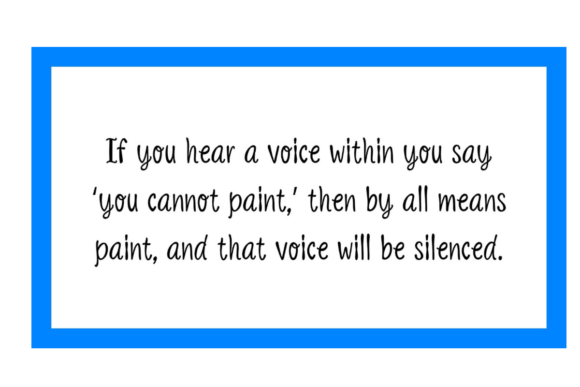
Introducing End Flick Font: The Quirky Handwritten Font for Creative Projects
Are you tired of using the same old fonts for your creative projects? Look no further than End Flick Font, a quirky handwritten font that’s perfect for adding a personal touch to your designs. With its playful flicks and loops on each letter, End Flick Font is sure to bring a cheerful and whimsical character to any project.
What is End Flick Font?
End Flick Font is a unique and creative font that’s designed to add a touch of personality to your designs. Its quirky handwritten style features playful flicks and loops on each letter, giving it a fun and whimsical feel. This font is perfect for creative titles, children’s books, or fun DIY projects, and is sure to help your designs stand out from the crowd.
Key Features of End Flick Font
- Quirky Handwritten Style: End Flick Font features a unique and quirky handwritten style that’s perfect for adding a personal touch to your designs.
- Playful Flicks and Loops: Each letter in the font features playful flicks and loops, giving it a fun and whimsical feel.
- Perfect for Creative Projects: End Flick Font is perfect for creative titles, children’s books, or fun DIY projects.
- Whimsical Character: The font’s whimsical character brings a cheerful and personal touch to any design.
Uses for End Flick Font
End Flick Font is a versatile font that can be used for a variety of creative projects. Here are some ideas to get you started:
- Children’s Books: The font’s playful and whimsical style makes it perfect for children’s books, educational materials, and kids’ crafts.
- Creative Titles: Use End Flick Font to add a touch of personality to your titles, headings, and subtitles.
- DIY Projects: The font’s quirky style makes it perfect for fun DIY projects, such as crafting, scrapbooking, and paper crafting.
- Social Media Graphics: Use End Flick Font to add a personal touch to your social media graphics, such as Instagram posts, Facebook headers, and Twitter graphics.
Tips for Using End Flick Font
Here are some tips for using End Flick Font in your designs:
- Use it for Headings and Titles: End Flick Font is perfect for headings and titles, where you want to add a touch of personality to your design.
- Pair it with Other Fonts: Try pairing End Flick Font with other fonts to create a unique and interesting contrast.
- Experiment with Colors: The font’s playful style looks great with bright and bold colors, so don’t be afraid to experiment with different color schemes.
- Use it for Kids’ Projects: The font’s whimsical style makes it perfect for kids’ projects, such as children’s books, educational materials, and kids’ crafts.
End Flick Font is a quirky and creative font that’s perfect for adding a personal touch to your designs. With its playful flicks and loops on each letter, this font is sure to bring a cheerful and whimsical character to any project. Whether you’re working on a children’s book, a DIY project, or a social media graphic, End Flick Font is a great choice. So why not give it a try and see how it can add a touch of personality to your designs?